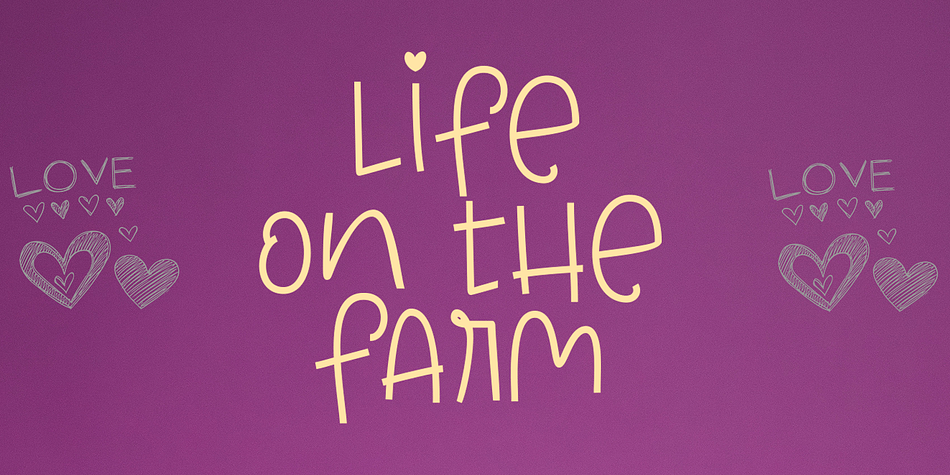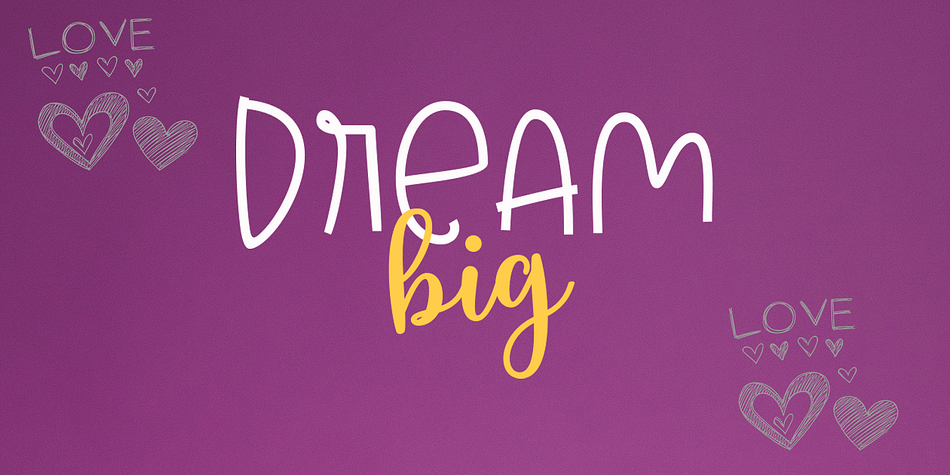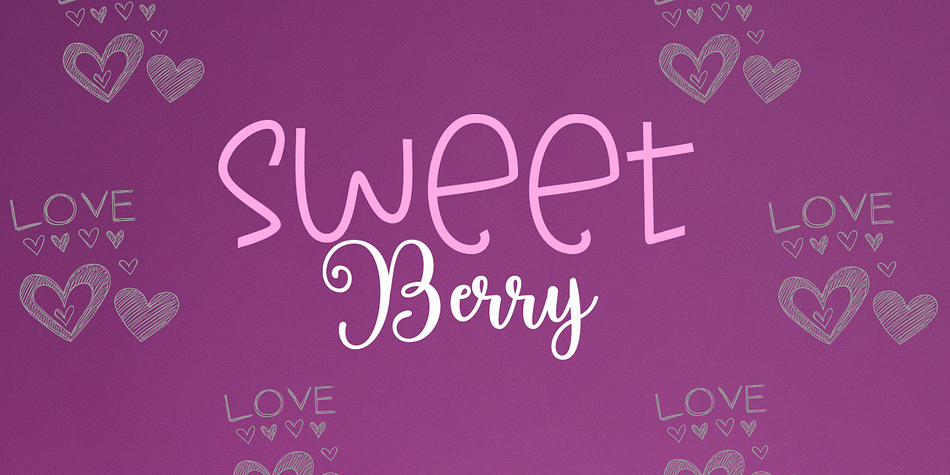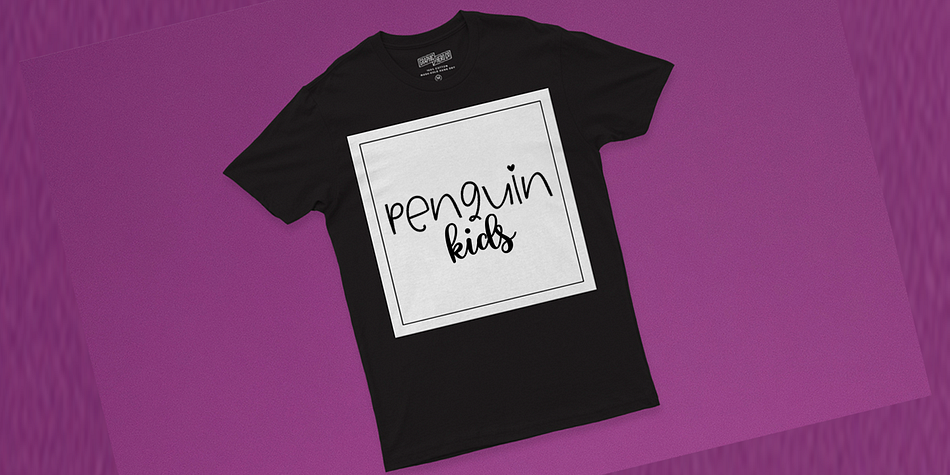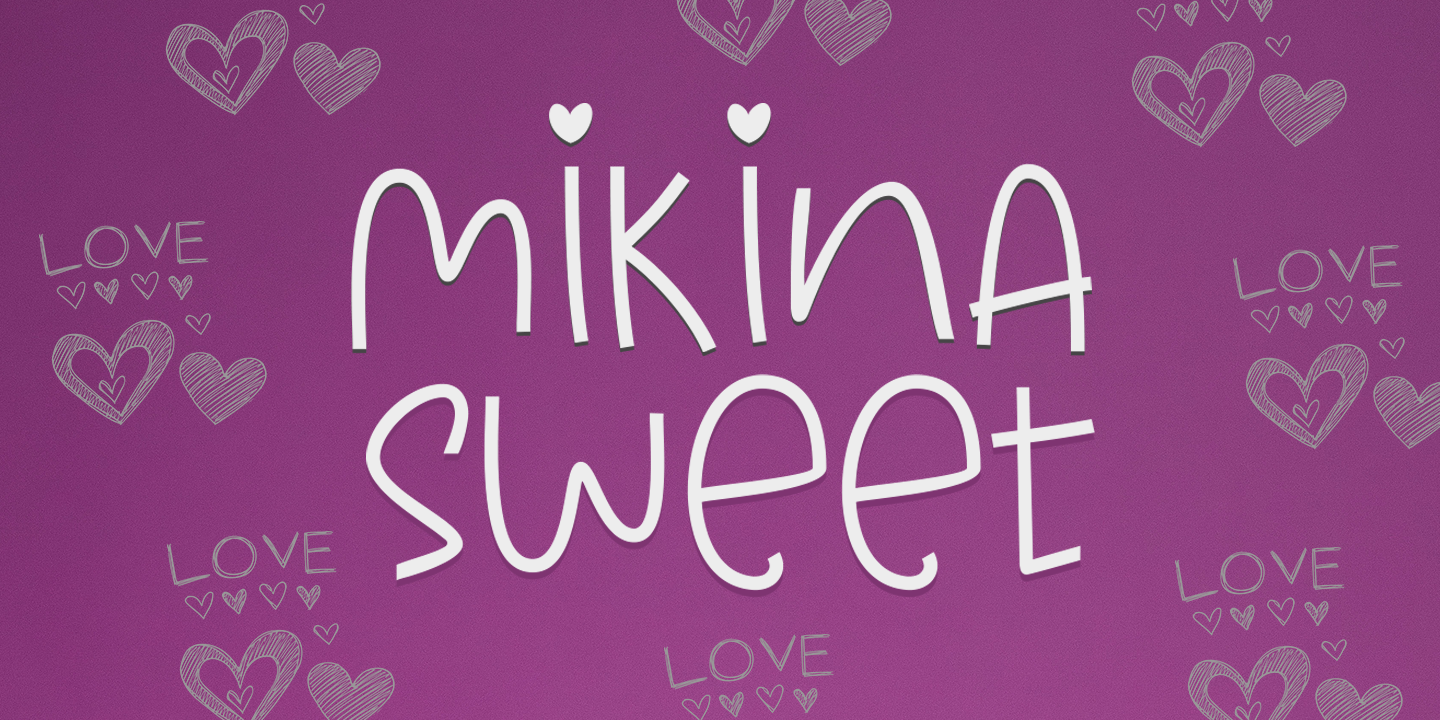
MIKINA SWEET
Mikina Sweet is a kids font family published by Gatype.
Mikina Sweet is a beautiful mono-line font, perfect for logo design, branding, clothing design, signage, posters, wedding invitations, and more! My goal with this font was to create an easy-to-read script font that would work for a variety of purposes.